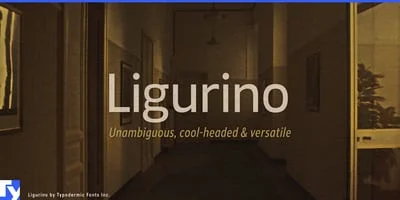
Ligurino Font
Ligurino Font is ideal for Mediterranean design projects including Italian restaurants, coastal tourism campaigns, Mediterranean cuisine brands, Italian cultural centers, seaside resort branding, olive oil producers, wine estate materials, and authentic Italian heritage campaigns. This elegant typeface works perfectly for Italian fashion boutiques, Mediterranean travel agencies, Italian cooking schools, coastal real estate companies, and projects that celebrate the timeless beauty and cultural richness of Italian coastal regions and Mediterranean lifestyle.
What makes Ligurino Font exciting is its Mediterranean coastal character that perfectly captures the essence of Italian seaside elegance and Ligurian sophistication. The font features flowing letterforms with coastal curves that reflect the natural beauty and cultural refinement of the Italian Riviera and Mediterranean coastline. Its elegant design elements embody the spirit of Italian coastal living and Mediterranean charm, making it perfect for projects that need to convey sophistication, heritage, and connection to Italian culture. The carefully crafted coastal proportions create an atmosphere of Mediterranean sophistication and Italian authenticity.
Ligurino Font comes in multiple family variations including coastal, elegant, Mediterranean, and Italian styles. Each weight maintains the distinctive Italian character while offering different levels of coastal intensity and Mediterranean presence. The font family includes Italian alternates, coastal ligatures, and Mediterranean variations that provide designers with comprehensive options for creating truly authentic and culturally resonant typographic compositions that celebrate Italian excellence.